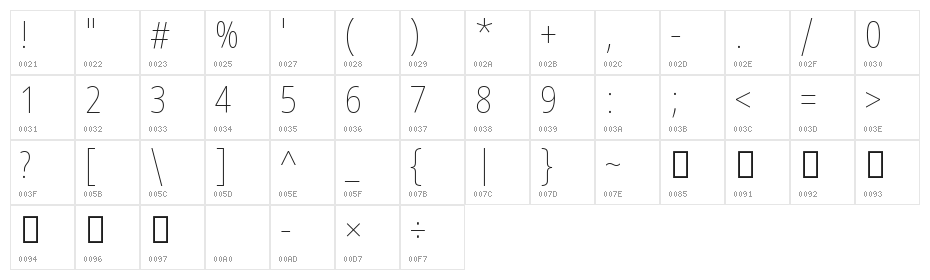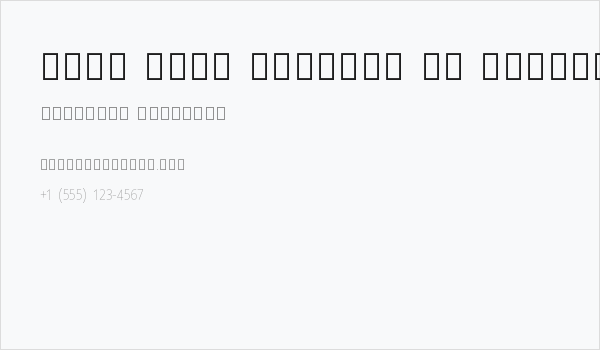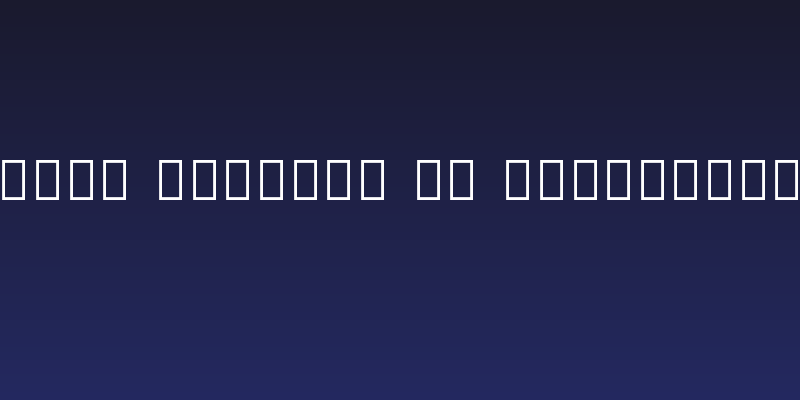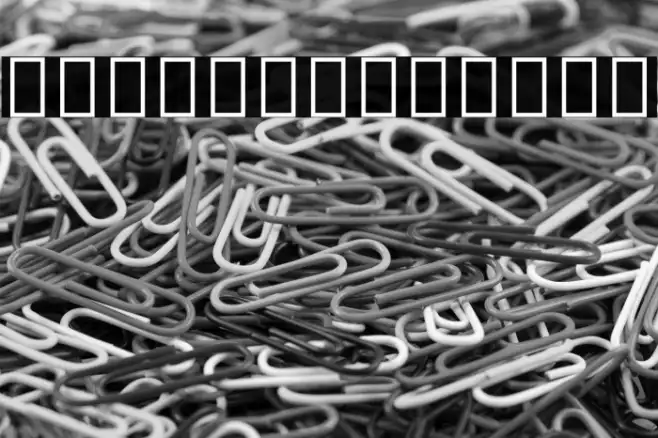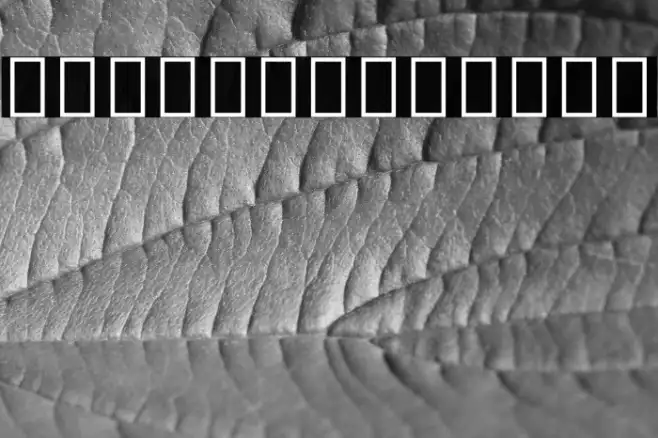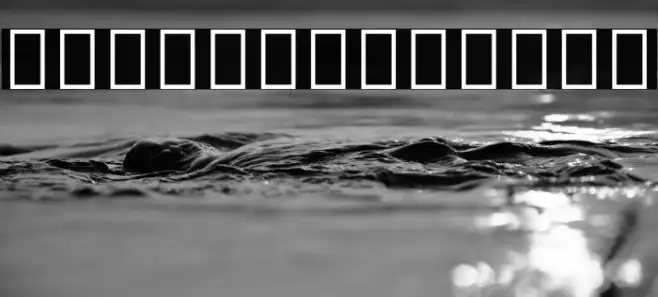
Noto Sans Sinhala UI Condensed Thin Font
Noto Sans Sinhala UI Condensed Thin Description
This font is a highly legible and modern sans-serif typeface with a condensed structure, ideal for UI design. Its thin weight gives it an elegant and sleek appearance, making it suitable for digital interfaces where space is limited. The characters are clean and straightforward, with a uniform stroke width that ensures clarity and readability. The numerals and special characters are designed to match the overall aesthetic, providing a cohesive look across all text elements. This font's simplicity and efficiency make it a versatile choice for various applications.
| Use Case | Headlines, UI design, Digital interfaces |
| Proposed Projects | Perfect for mobile app interfaces, website design, digital dashboards, and any project requiring a clean and space-efficient typeface. |